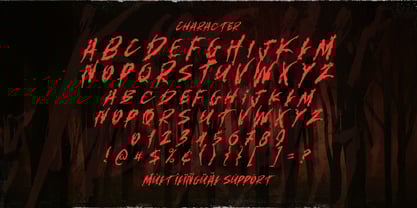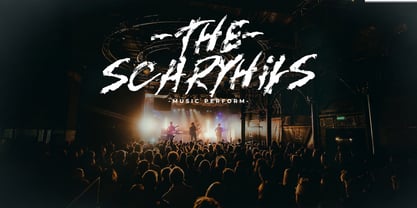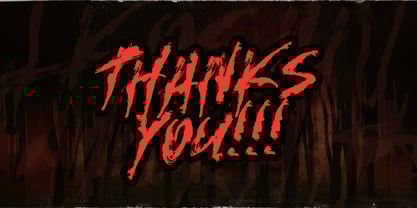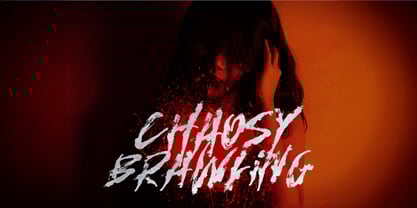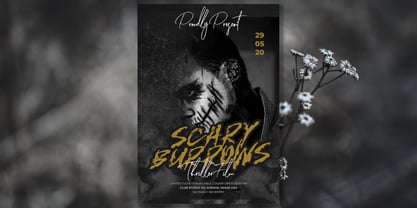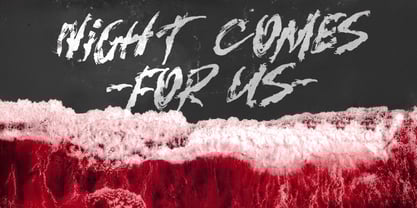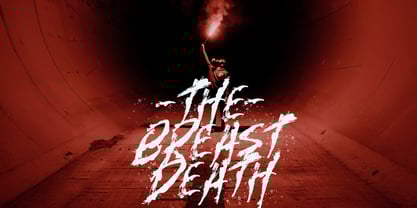
The Kosan Murah Font Family was designed by Virgiawan Listanto and published by Stringlabs Creative Studio. Kosan Murah contains 1 styles. More about this family
Kosan Murah is a bold, spooky horror font that brings an unsettling, terrifying vibe to any design. With its rough, distressed edges and ominous letterforms, this font is perfect for projects that aim to send chills down your spine. Perfect for anything that needs a terrifying, horror-filled touch.
Designers: Virgiawan Listanto
Foundry: Stringlabs Creative Studio
Kosan Murah